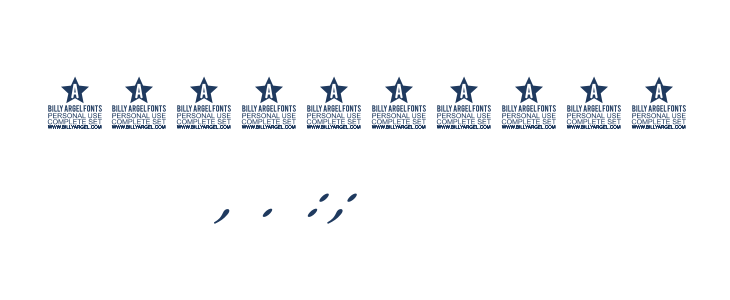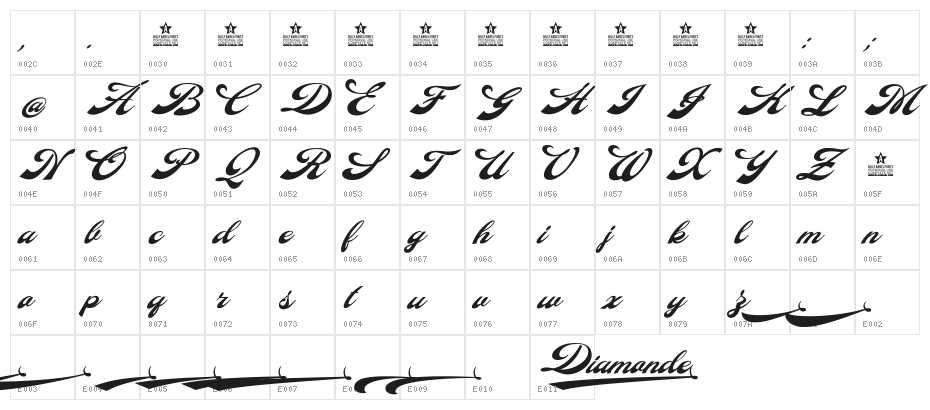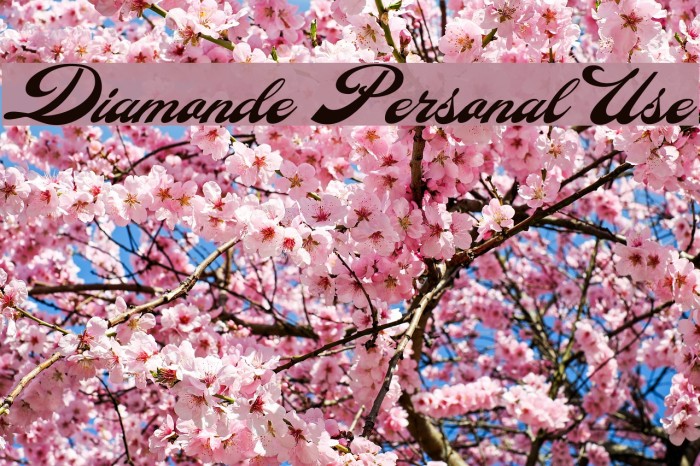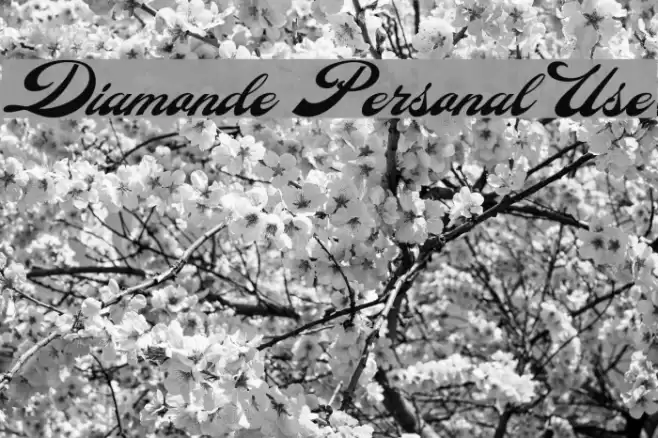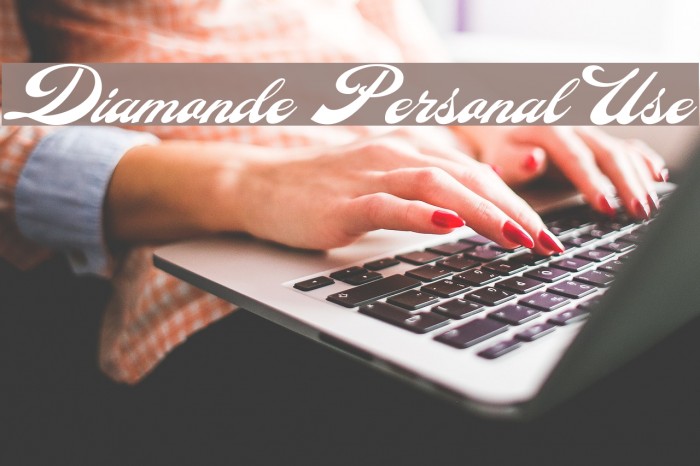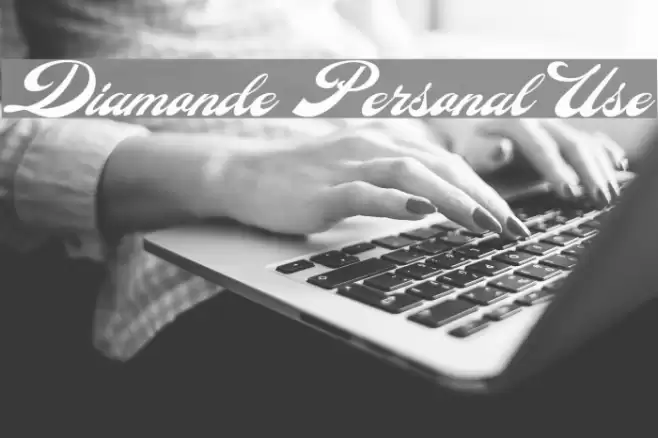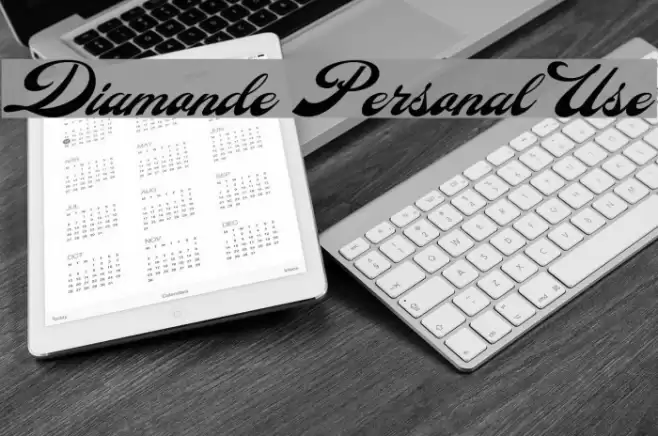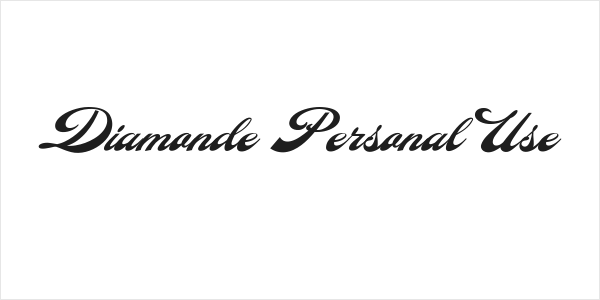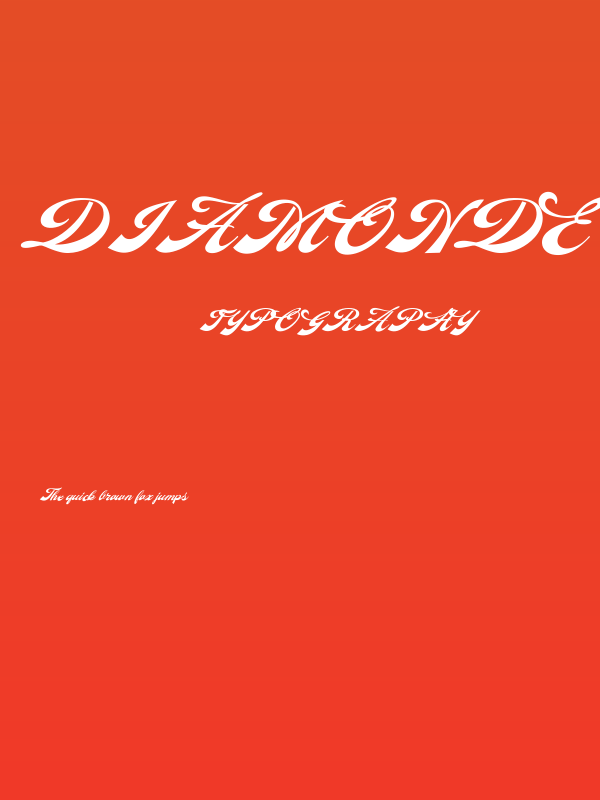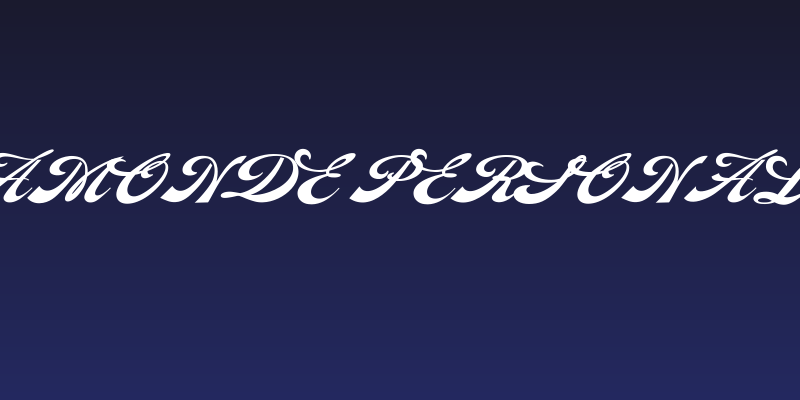
Diamonde Personal Use Font
Diamonde Personal Use Description
This font features a bold, flowing script style with high contrast between thick and thin strokes. The characters are elegantly connected, giving a sense of fluidity and movement. The uppercase letters are ornate and slightly larger than the lowercase, which are equally decorative but more compact. The font exudes a classic and sophisticated feel, reminiscent of traditional calligraphy. It is designed to capture attention with its intricate curves and swashes, making it suitable for decorative purposes. The special characters maintain the same stylistic elements, ensuring consistency throughout.
| Proposed Projects | Ideal for wedding invitations, luxury branding, elegant signage, and decorative headlines. |